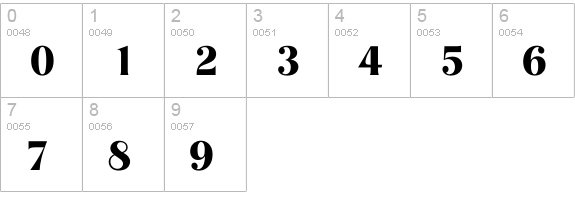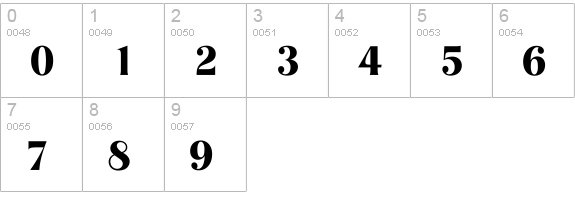
Nashvi DemiBold Font Details
Nashvi DemiBold is a sub-bold, structured variant in the Nashvi typeface family \xE2\x80\x94 well suited to sub-headlines and emphasised passages.
Nashvi DemiBold font is a versatile and modern typeface that exudes confidence and sophistication. With its bold and sleek design, this font is perfect for making a statement in your designs. Whether you're creating branding materials, posters, or website headers, Nashvi DemiBold will help your text stand out and make a lasting impression. The best part? Nashvi DemiBold font is available for free download at FontsMarket.com. This means you can easily access this high-quality font without breaking the bank. Don't miss out on the opportunity to elevate your designs with Nashvi DemiBold - download it today and watch your projects come to life!